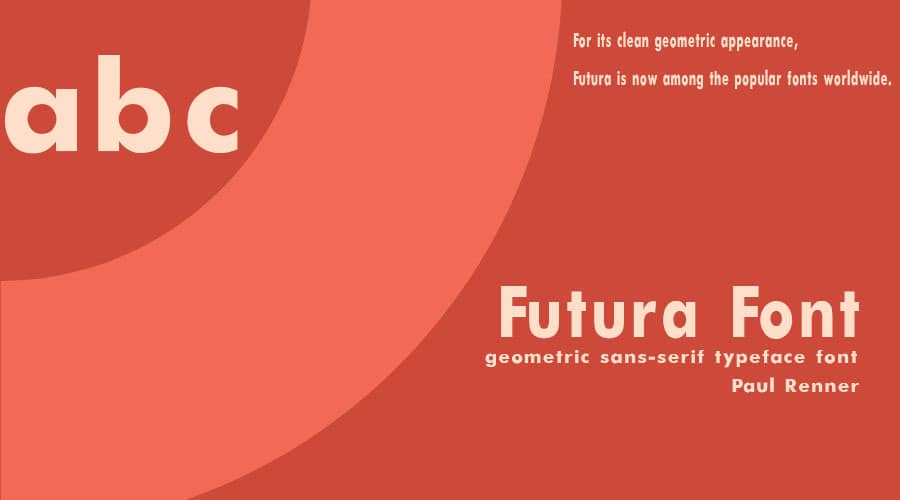
Futura is a Geometric sans-serif typeface font created by Paul Renner as a payment to the New Frankfurt task. First provided by the Bauer Kind Factory in 1928, Futura created the prototype of the twentieth-century Geometric Sanserif. For its clean geometric appearance, Futura is now among the popular fonts worldwide.
As the font has an eye-catchy typeface, it is suitable for nearly every section you require. When you determine to make an elegant design and wish to include text, Futura is a perfect choice that works. You can make use of Futura on the systems listed below:
Designing Job: As the font has ten styles, It is suitable for every single area you need. The geometric shape may not cover imaginative style locations however takes a look at beautiful types.
Heading: For the Headings and Text, the Futura font is excellent to make use of. You can use its number of layouts according to requirements.
Official work or Documentation: Futura font takes a look to utilize in the main work and documentation.
Logo designs: You can develop your logo designs with it.
Websites: I have seen numerous websites utilize this font.